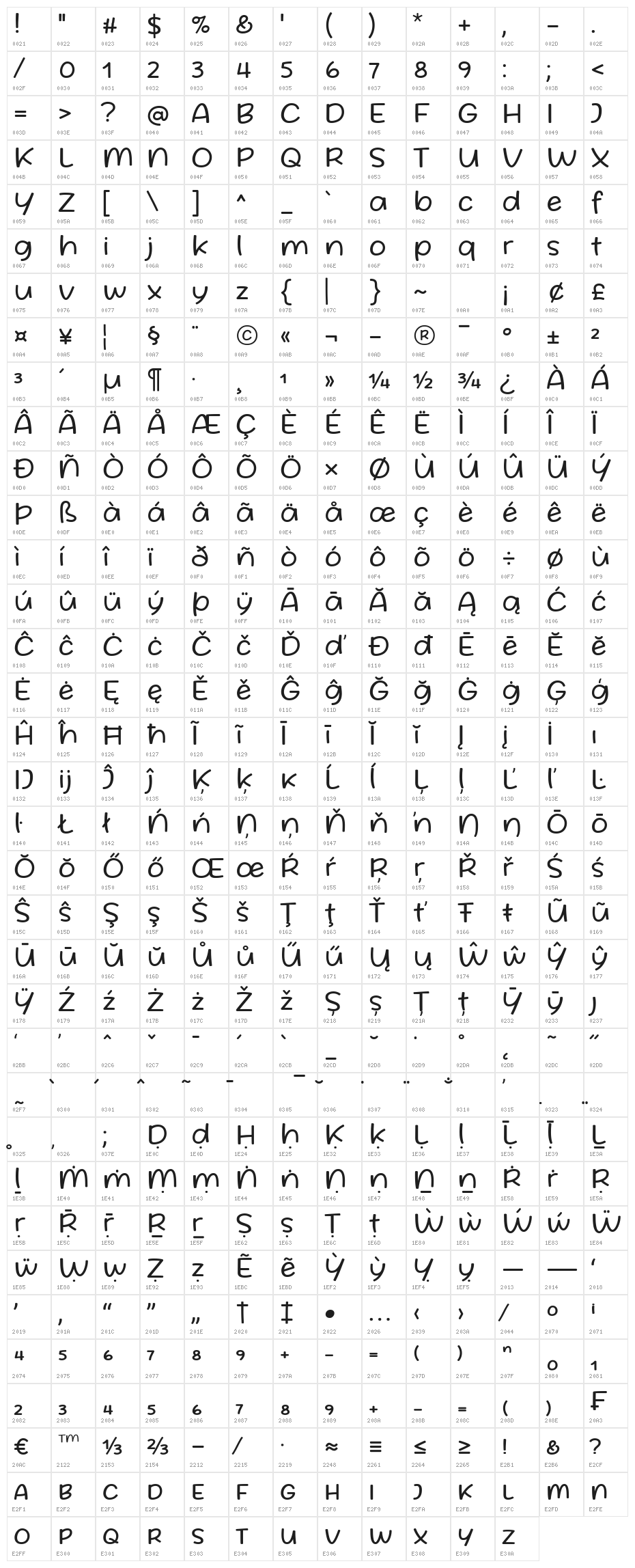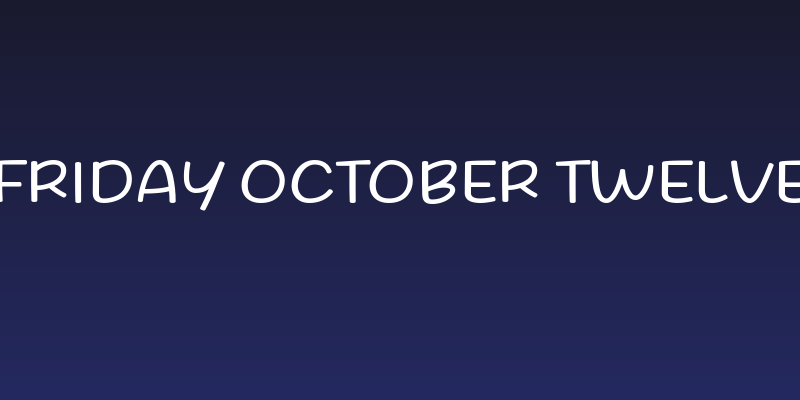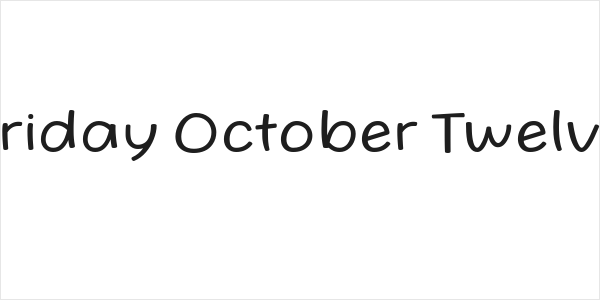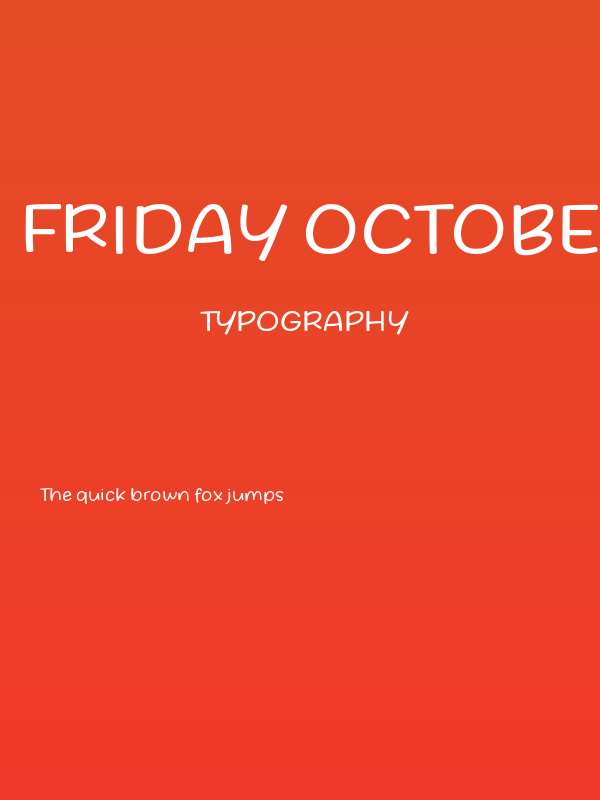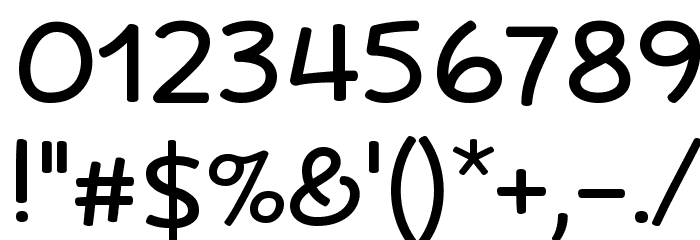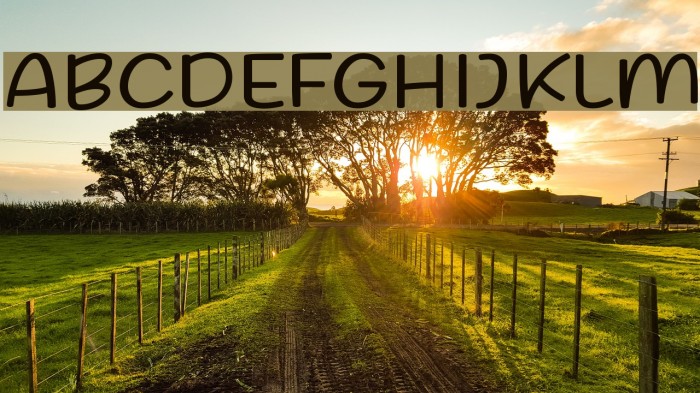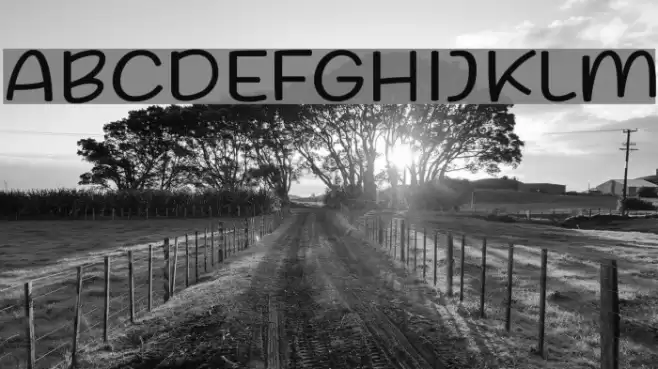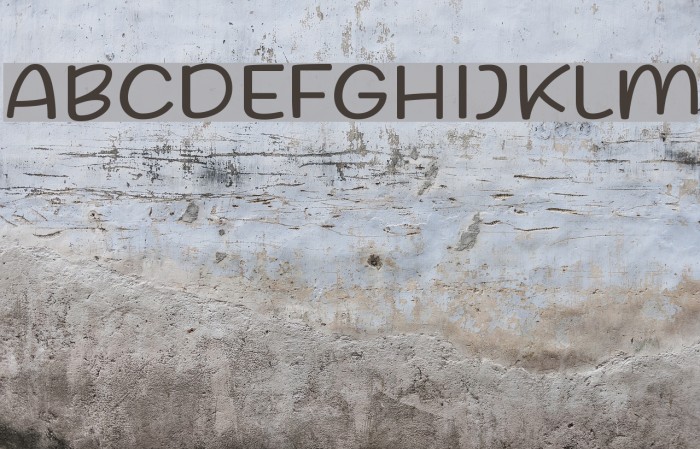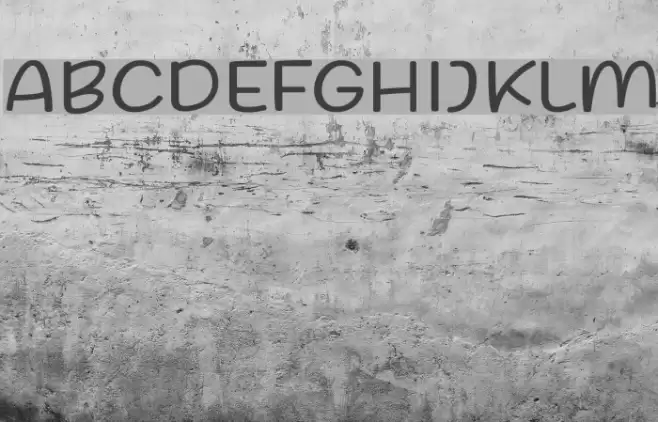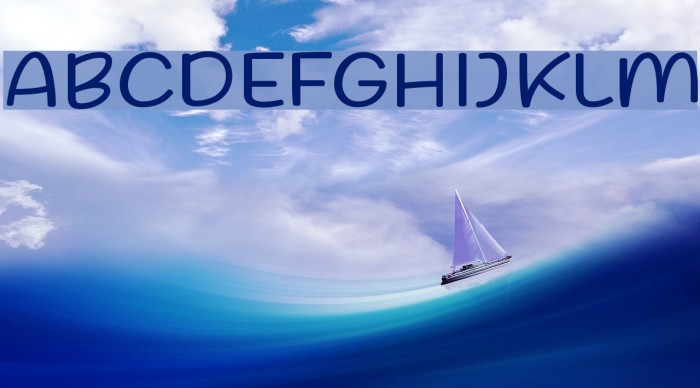
Friday October Twelve Font
Friday October Twelve Description
This font features a playful and casual design, characterized by its rounded and slightly irregular letterforms. The uppercase and lowercase letters maintain a consistent style, with smooth curves and a friendly appearance. The numerals are bold and easy to read, complementing the overall aesthetic. Special characters are included, maintaining the same playful style. This font is ideal for projects that require a lighthearted and approachable feel, such as children's books, casual branding, or informal invitations.